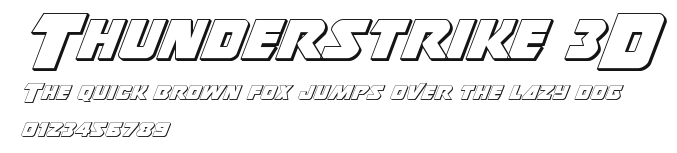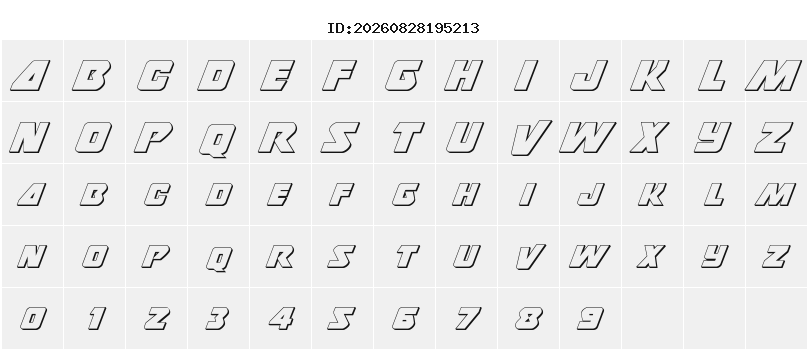
• Font Name: Thunderstrike 3D
• Full Font Name: Thunderstrike 3D
About Thunderstrike 3D.ttf
Thunderstrike 3D.ttf is a modern, elegant sans-serif font designed for ultimate readability and visual harmony. Perfect for branding, headlines, web design, and print materials.